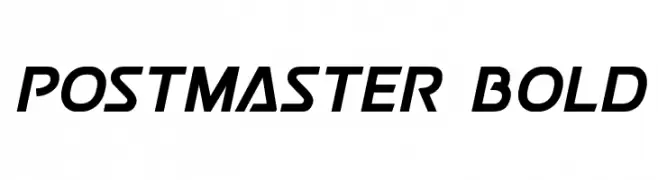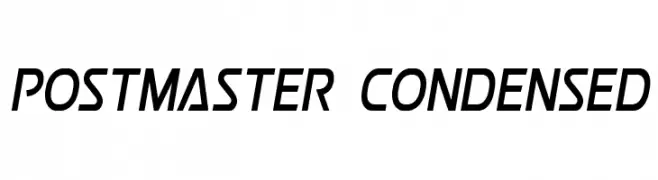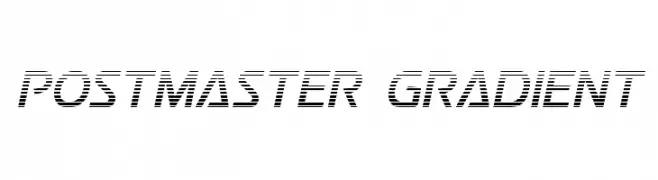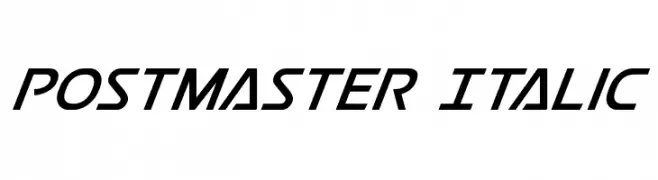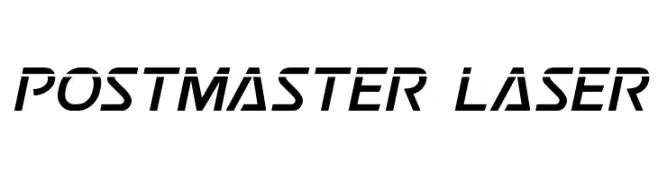
A modern, geometric outline font with consistent line weight and balanced design.
A bold, 3D outlined font with a modern, futuristic style.
A bold, slanted font with a modern and dynamic style.
A modern, condensed font with italicized characters and tight spacing.
A modern, italicized font with a sleek and dynamic design.
A modern, striped font with a dynamic gradient effect and italic slant.
A bold, italicized font with a halftone effect, perfect for modern designs.
A sleek, italicized font with a modern and dynamic appearance.
A futuristic, slanted font with bold, angular characters and a dynamic appearance.
A dynamic 3D italic font with a futuristic and bold design.